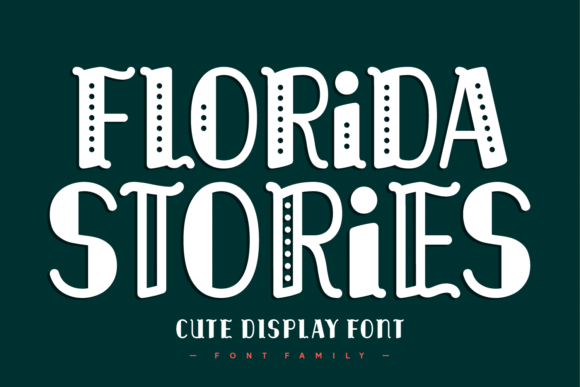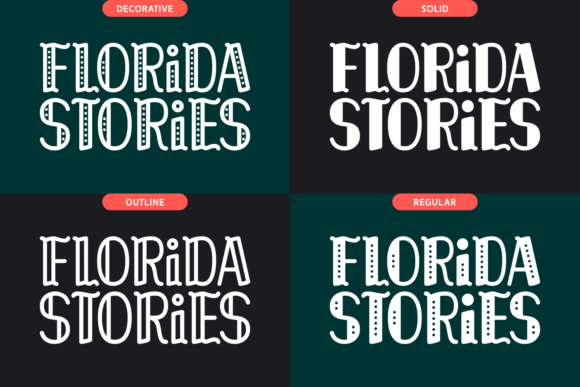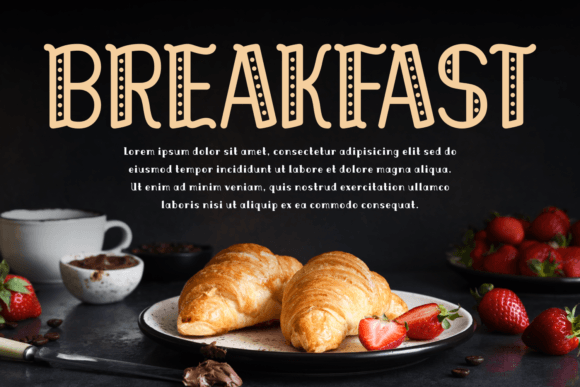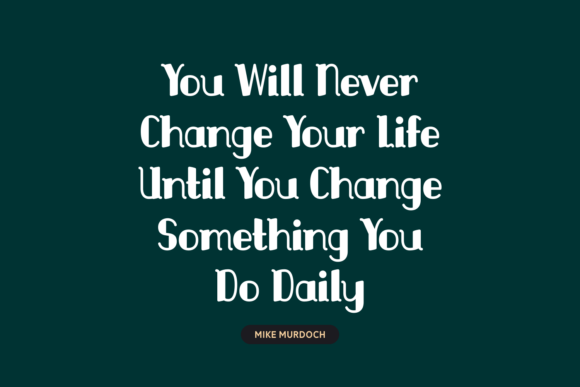
Discover the Charm of Florida Stories Font: Elevate Your Creations with this Versatile Font Family
Are you a designer, crafty enthusiast, or business owner looking for a font that can add a touch of elegance and playfulness to your projects? Look no further than the Florida Stories Font! This lovely font family comes in four distinct versions: decorative, solid, outline, and regular, offering endless possibilities for creative expression. In this article, we’ll explore the features and benefits of Florida Stories Font, and how it can elevate your designs, branding, and craft projects.
A Font Family that Offers Versatility and Flexibility
The Florida Stories Font family is designed to cater to various design needs, making it an excellent addition to your font collection. The four versions of this font family include:
- Decorative: Perfect for adding a touch of whimsy and elegance to your designs, the decorative version of Florida Stories Font features intricate details and ornate flourishes.
- Solid: Ideal for designs that require a bold and solid font, the solid version of Florida Stories Font offers a clean and crisp look.
- Outline: The outline version of Florida Stories Font is perfect for creating designs that require a delicate and airy feel.
- Regular: The regular version of Florida Stories Font offers a classic and timeless look, suitable for a wide range of design applications.
Endless Design Possibilities with Florida Stories Font
With Florida Stories Font, the design possibilities are endless! This versatile font family is perfect for:
- Logos: Create a memorable and distinctive logo for your business or brand with Florida Stories Font.
- Quotes: Add a touch of elegance to your quotes and sayings with the decorative or regular versions of Florida Stories Font.
- Magazines: Use Florida Stories Font to add a playful and creative touch to your magazine layouts and designs.
- Branding: Establish a consistent brand identity with Florida Stories Font, perfect for business cards, letterheads, and more.
- Flower Shops: Create beautiful and eye-catching signage, flyers, and brochures for your flower shop with Florida Stories Font.
- T-Shirts: Design unique and stylish t-shirts with Florida Stories Font, perfect for personal or business use.
- Signs: Create eye-catching signs for your business or event with the bold and decorative versions of Florida Stories Font.
Why Choose Florida Stories Font?
So, why choose Florida Stories Font for your design projects? Here are just a few reasons:
- Unique and Versatile: Florida Stories Font offers a unique and versatile design that’s perfect for a wide range of applications.
- Elegant and Playful: This font family combines elegance and playfulness, making it perfect for designs that require a touch of whimsy.
- High-Quality: Florida Stories Font is a high-quality font family, designed to deliver crisp and clear results in various design applications.
- Easy to Use: With four distinct versions, Florida Stories Font is easy to use and integrate into your design projects.
In conclusion, Florida Stories Font is a versatile and charming font family that’s perfect for designers, crafty enthusiasts, and business owners looking to elevate their creations. With its four distinct versions, this font family offers endless design possibilities, from logos and quotes to magazines and branding. Whether you’re looking to add a touch of elegance, playfulness, or whimsy to your designs, Florida Stories Font is an excellent choice. So why wait? Download Florida Stories Font today and discover the charm and versatility it can bring to your design projects!